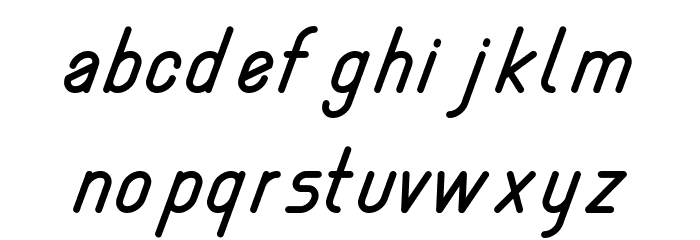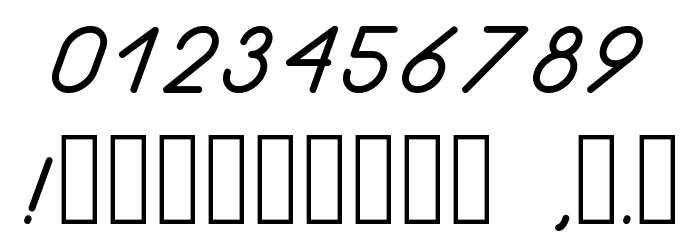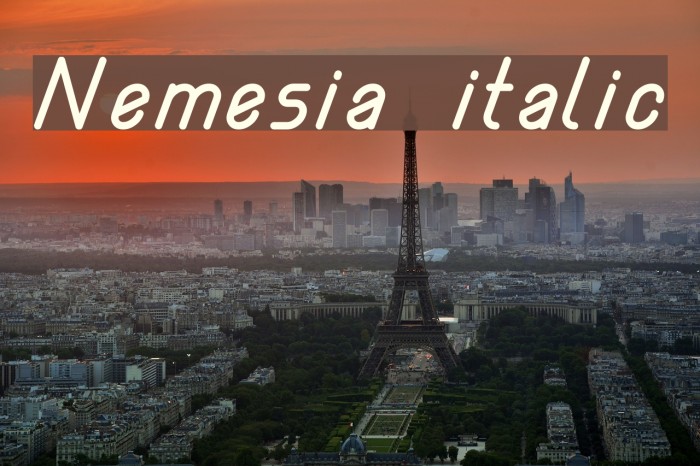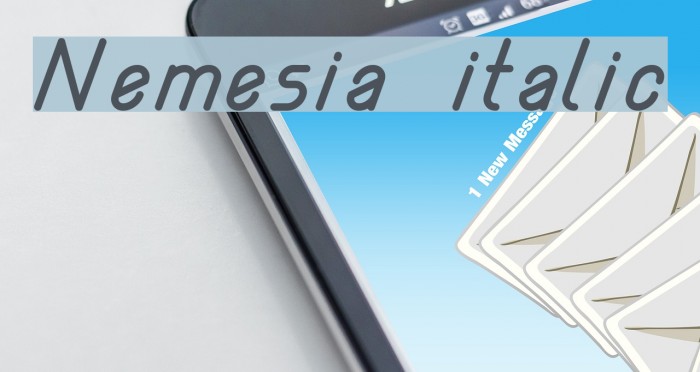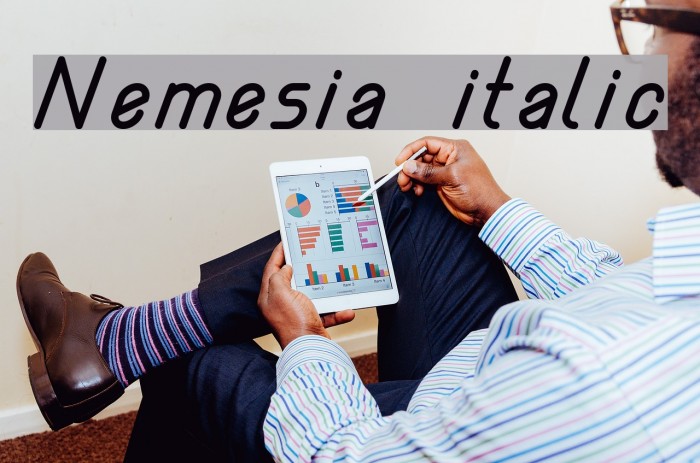
Nemesia italic Font
This font features a sleek and modern italic style with a slight slant, giving it a dynamic and forward-moving appearance. The characters are well-defined with a consistent stroke width, providing a clean and uniform look. The uppercase letters are slightly taller than the lowercase, maintaining a balanced proportion. The numerals are clear and easy to read, matching the overall style of the alphabet. Special characters are included, maintaining the same italicized and streamlined design. The font's simplicity and elegance make it versatile for various design applications.
A sleek, modern italic font with consistent stroke width and balanced proportions.
- Proposed Projects: Ideal for branding, advertising, and editorial design projects where a modern and dynamic feel is desired.